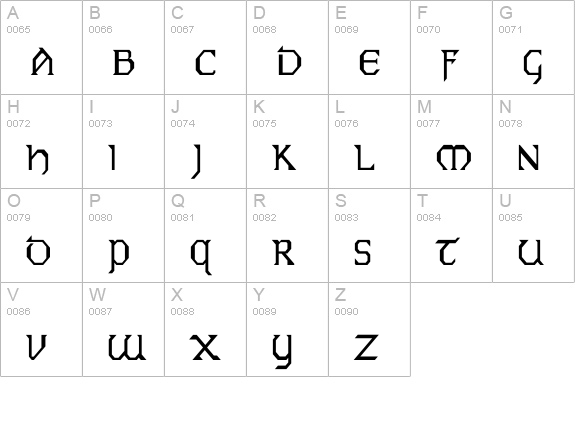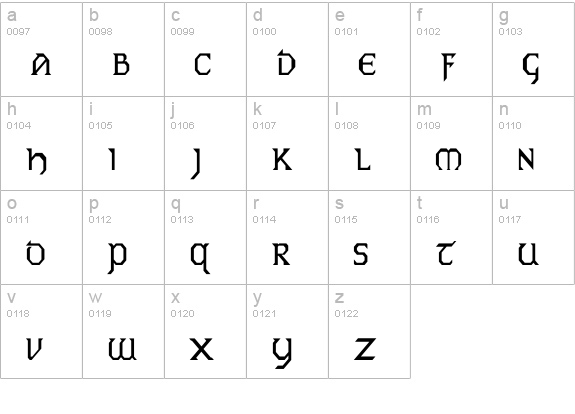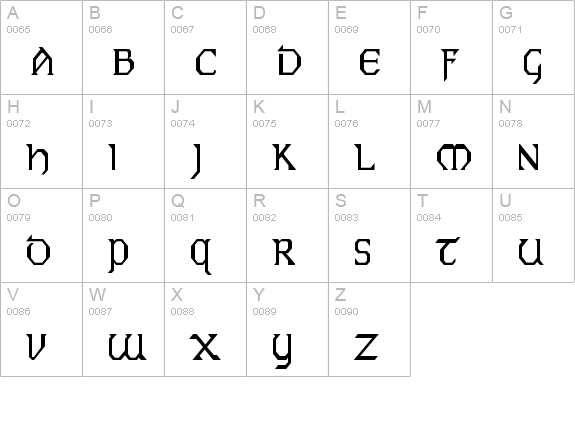
Eire Th font is a stunning display font that exudes elegance and sophistication. With its unique and intricate design, this font is perfect for adding a touch of luxury to any project. The sleek lines and curves of Eire Th font make it a versatile choice for a wide range of design applications, from branding to invitations to packaging. What's even better is that Eire Th font is completely free to download at FontsMarket.com. Yes, you read that right - this beautiful font can be yours at no cost, allowing you to elevate your design projects without breaking the bank. Don't miss out on this incredible opportunity to add a touch of class to your work with the free Eire Th font from FontsMarket.com.